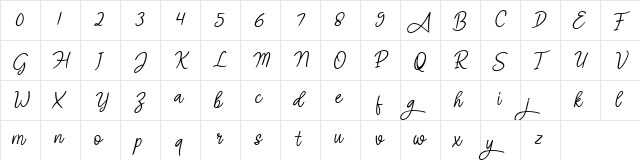
Angel Signature Italic Regular
Design Context for Angel Signature Italic Typeface
Angel Signature Italic is a composed and adaptable typeface that performs quietly and consistently across a wide range of design contexts. The slanted form adds forward momentum and visual energy.